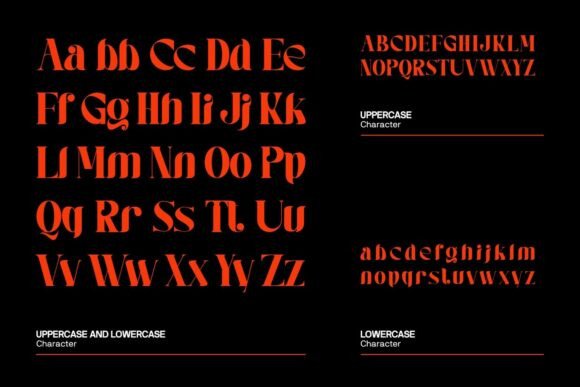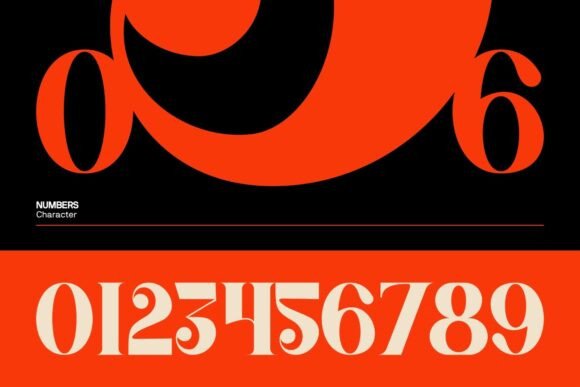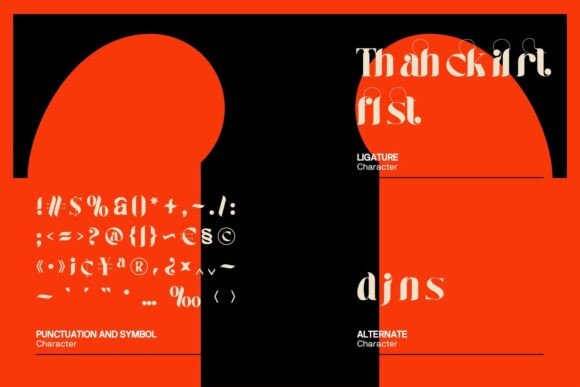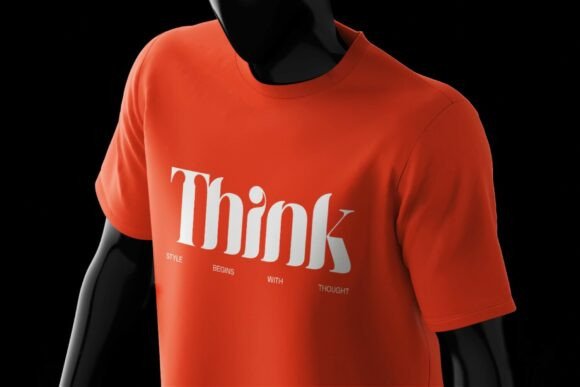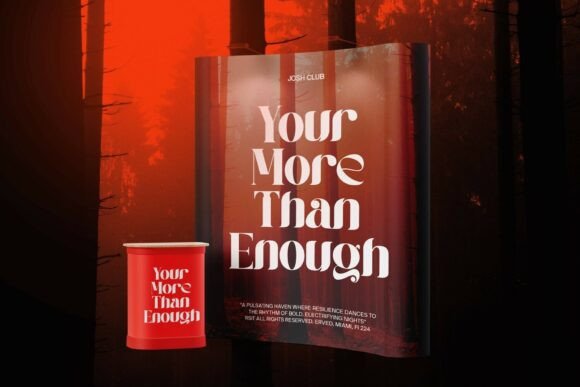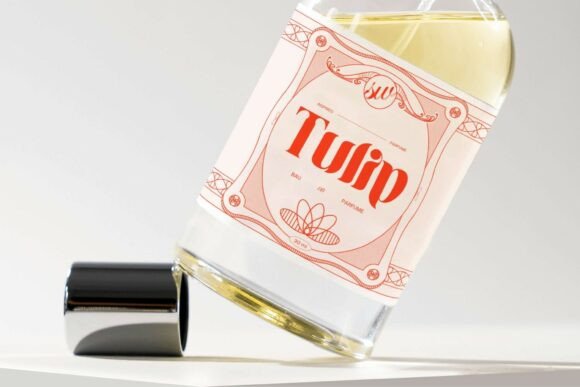
Introduction to Qegua Font
As a designer, there’s nothing quite like the thrill of bringing a creative project to life. The click of the mouse, the swoosh of the cursor, and the moment of truth when your design finally takes shape. For me, that moment was when I discovered the Qegua Font – a game-changing addition to my design arsenal. This stunning serif typeface has been a trusted companion ever since, elevating my designs with its refined curves and unique ligatures.
But what makes Qegua Font truly special is its versatility. Whether you’re working on a high-quality branding project, an elegant editorial layout, or a logo that demands attention, Qegua delivers sophistication and style with ease. And the best part? It’s a free download, making it an invaluable resource for designers on a budget.
Key Features of Qegua Font
- Unique, modern font style with a transparent background
- Includes 100+ glyphs and supports Latin, Cyrillic, and Greek alphabets
- Perfect for use in logos, branding, and digital design projects
Honest Review: Qegua Font
As a designer, I’m always on the lookout for high-quality design resources that can elevate my creative projects. Recently, I stumbled upon the Qegua Font, and I’m excited to share my honest review.
Here’s what I like about the Qegua Font:
- ✨ The font is highly customizable, with a wide range of weights and styles to choose from.
- ✨ The transparent background makes it easy to use in various design scenarios, from logos to icons.
- ⚠️ Some users may find the font’s unique style a bit too quirky for certain design projects.
Overall, I’m impressed with the Qegua Font’s versatility and design flexibility. While it may not be perfect for every project, it’s definitely a valuable addition to any designer’s toolkit. If you’re looking for a unique and customizable font for your creative project, the Qegua Font is definitely worth checking out.
Tips for Getting the Most Out of Qegua Font
Experiment with different font sizes, colors, and combinations to create unique and eye-catching designs. Use the transparent background feature to add a touch of sophistication to your designs.
Common Use Cases for Qegua Font
The Qegua Font is ideal for creating logos, social media graphics, posters, presentations, reports, and documents that require a high-quality, professional font. Its transparent background makes it perfect for designs that require a touch of elegance and sophistication.